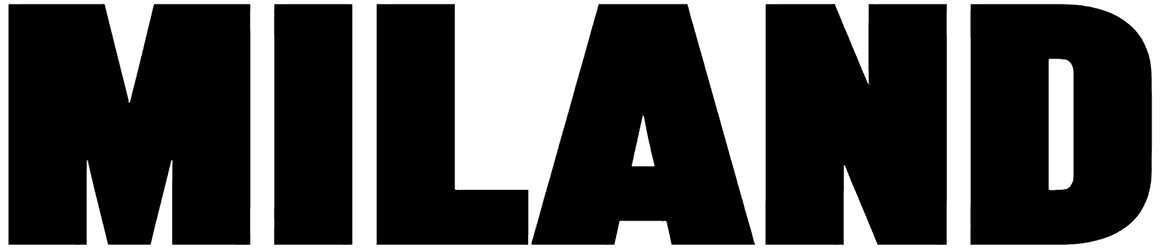
Miland Font
When you’re checking out every single entry in our bold collection, it may start to feel like a Deja Vu at some point but you have to disregard that if you wish to discover something as cool as Miland.
It does look sort of familiar because let’s face it, flyer fonts have a lot in common usually, but listen to your designer instinct. You can’t miss this. You can’t miss Miland! It’s going to be in your sports magazines and everywhere.